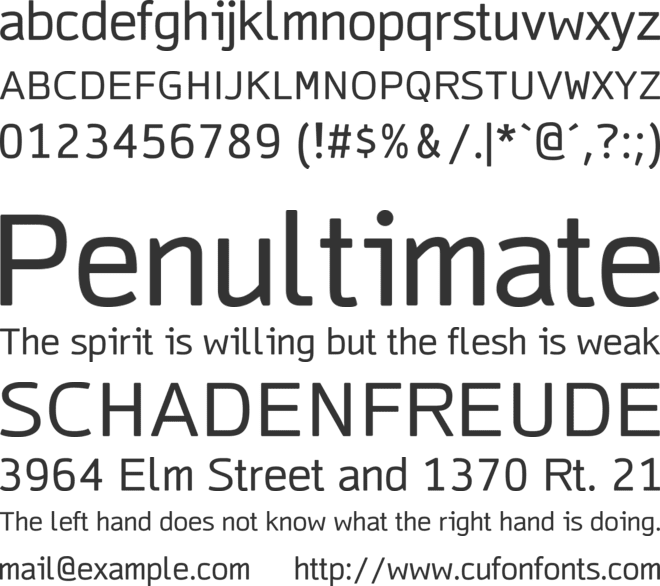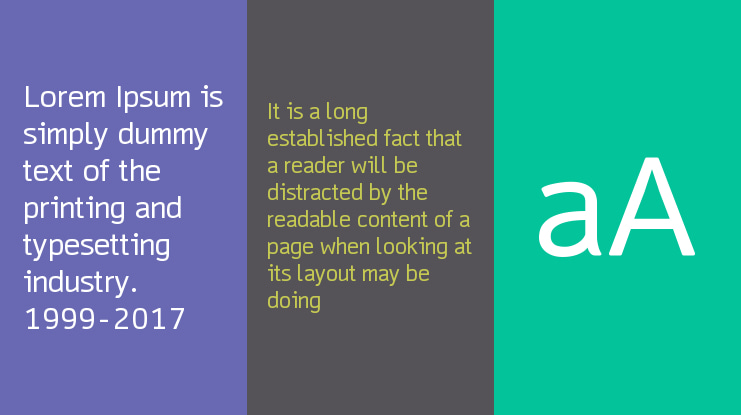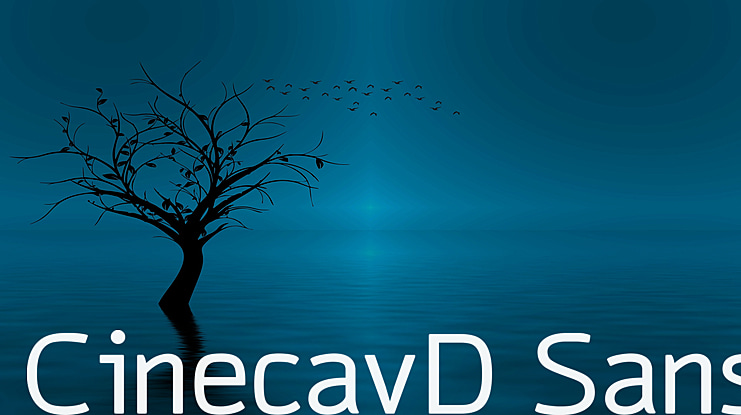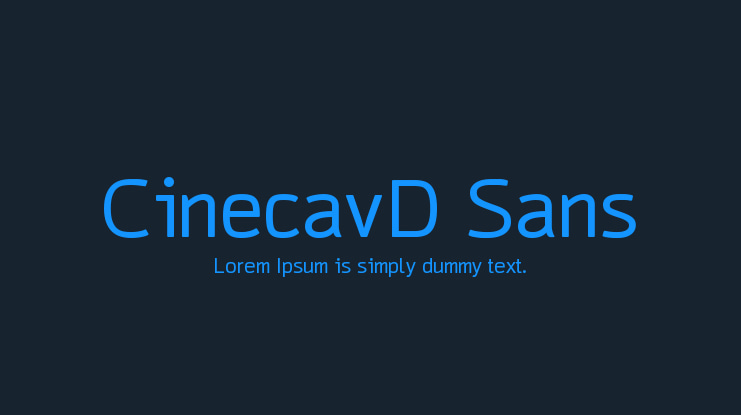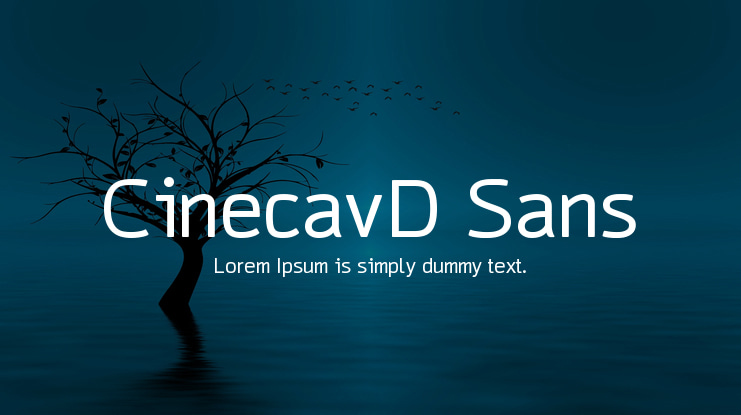
CinecavD Sans Font
Cinecav Sans is based on Cinecav UI, maintaining its contemporary style and extraordinary legibility. A bit less space-efficient, the proportions are very much in line with a common sans-serif fonts like Helvetica™ or Arial.*